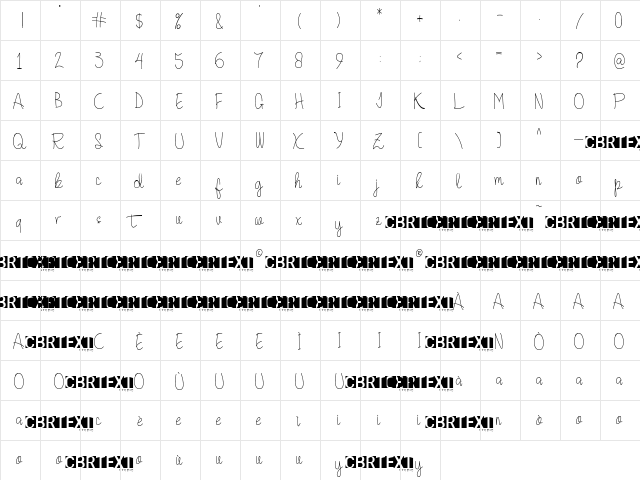
Quesky Regular
| Foundry | CBRTEXT Studio |
| Designer | CBRTEXT Studio |
Design Context for Quesky Typeface
Quesky offers clean, dependable letterforms without strong stylistic allegiance, making it a practical choice for designers who need flexibility.